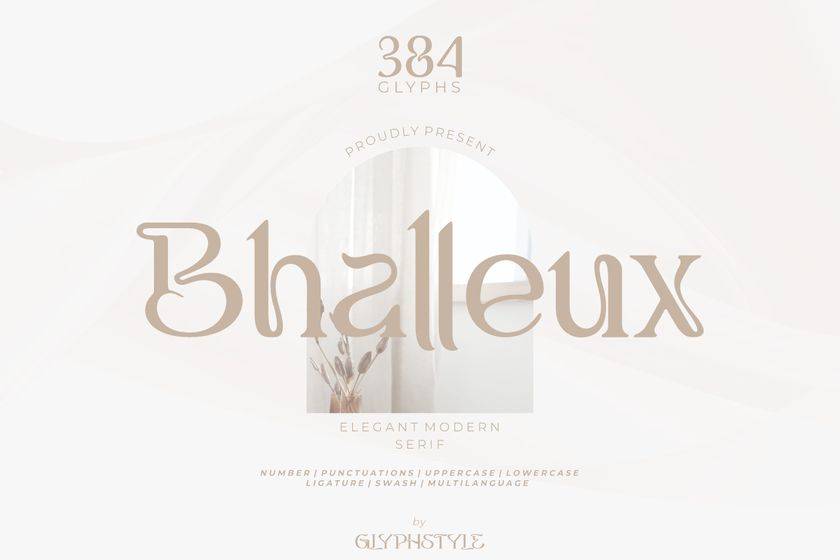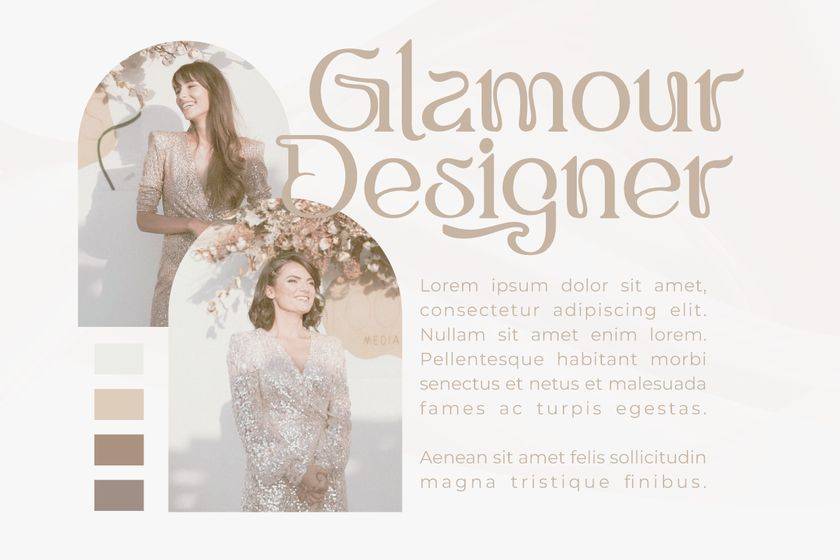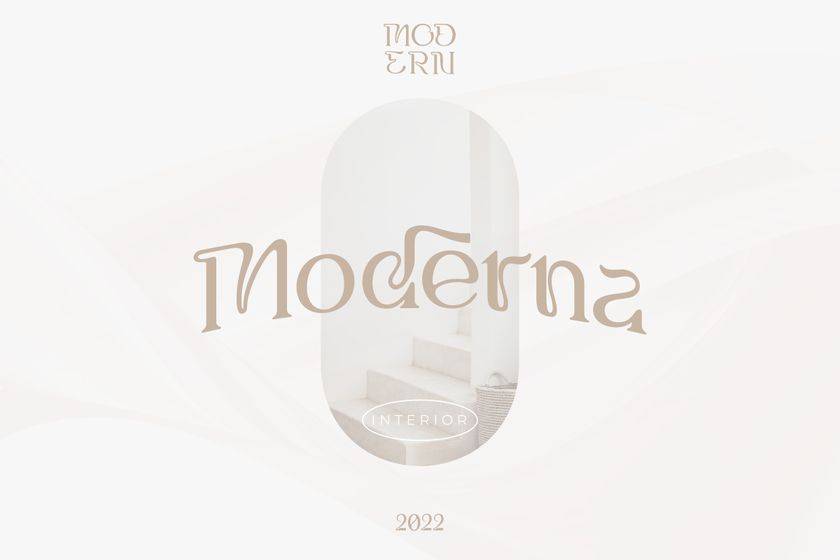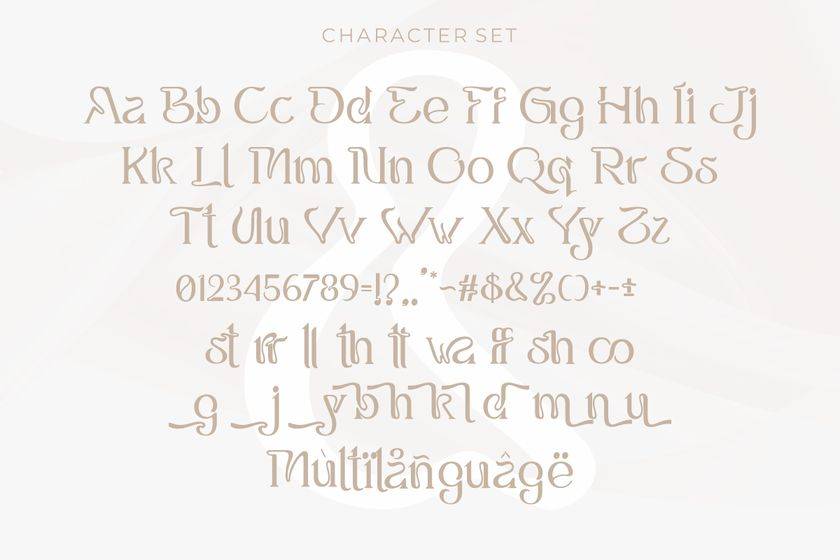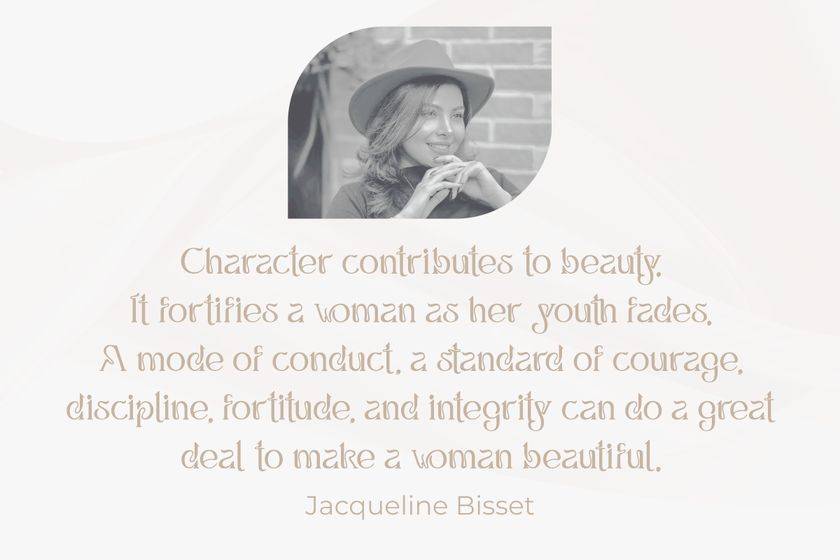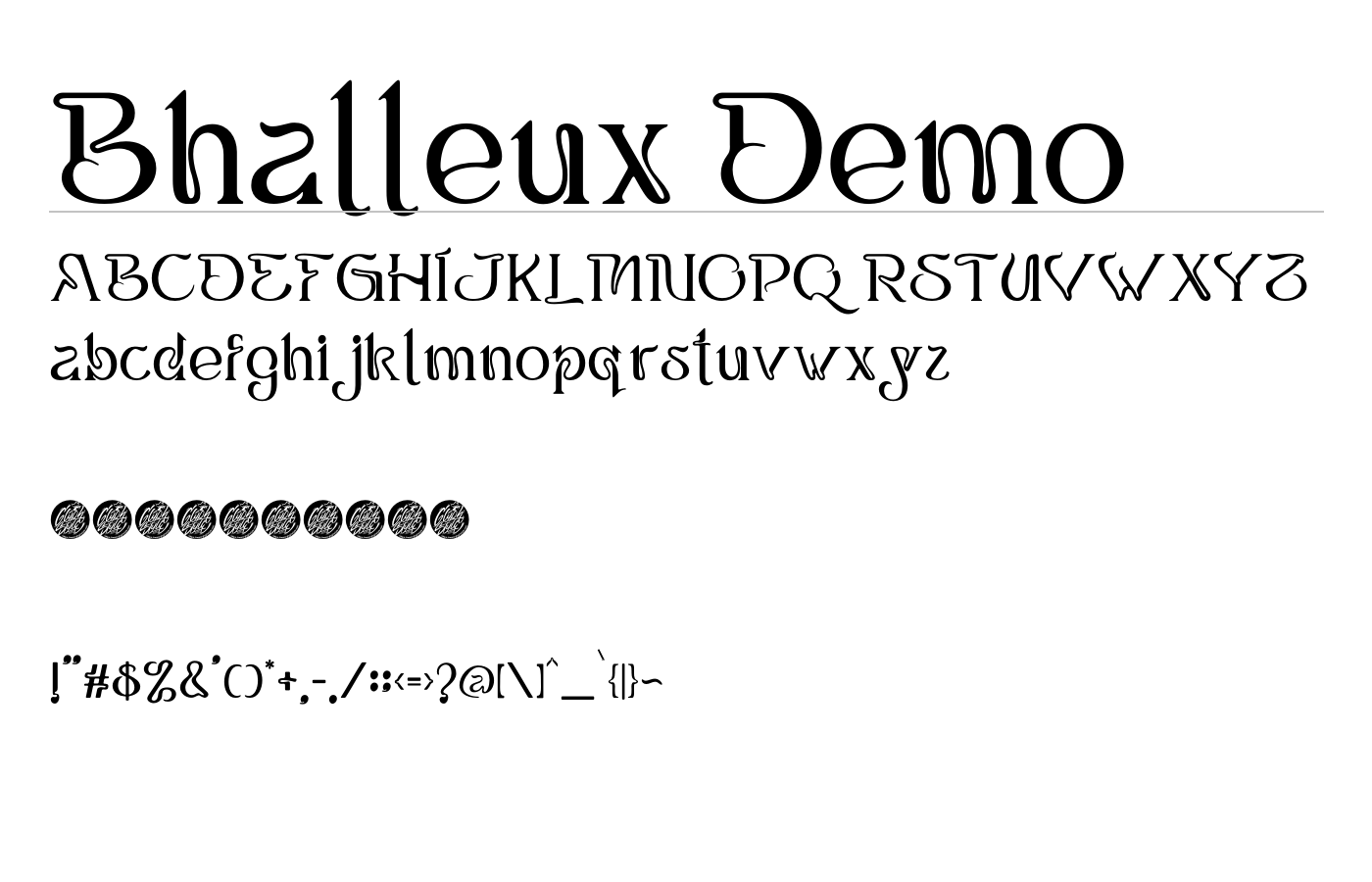
Bhalleux is a decorative serif font that combines elegant, quirky letterforms with moderate contrast and intricate curves, creating a playful yet sophisticated look. Its unique, artistic design makes it ideal for creative branding, fashion, or editorial projects that want to stand out with a distinctive and stylish personality. This font works best in headlines or logos where its detailed character shapes can shine.
Bhalleux Font
About Bhalleux Font
| Font family | Bhalleux Font |
| Release date | 2022-07-11 |
| Designer | Glyphstyle |